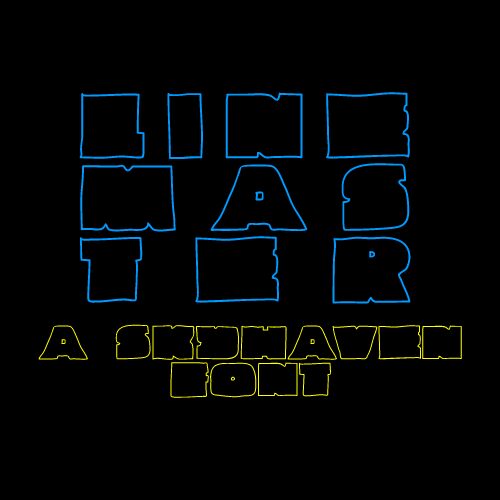
Linemaster by Skyhaven is a free outlined comic display font with broad, uneven letters and a loose cut-paper silhouette. Its contours wobble, broken by pinched notches and interior details.
Children's book covers and indie music posters can both use its deliberately awkward drawing to set an offbeat, homemade scene. It also suits snack packaging and playful game graphics. The wide letter bodies can echo sticker art, doodled creatures, and simple spot illustrations, turning the lettering into part of the picture.